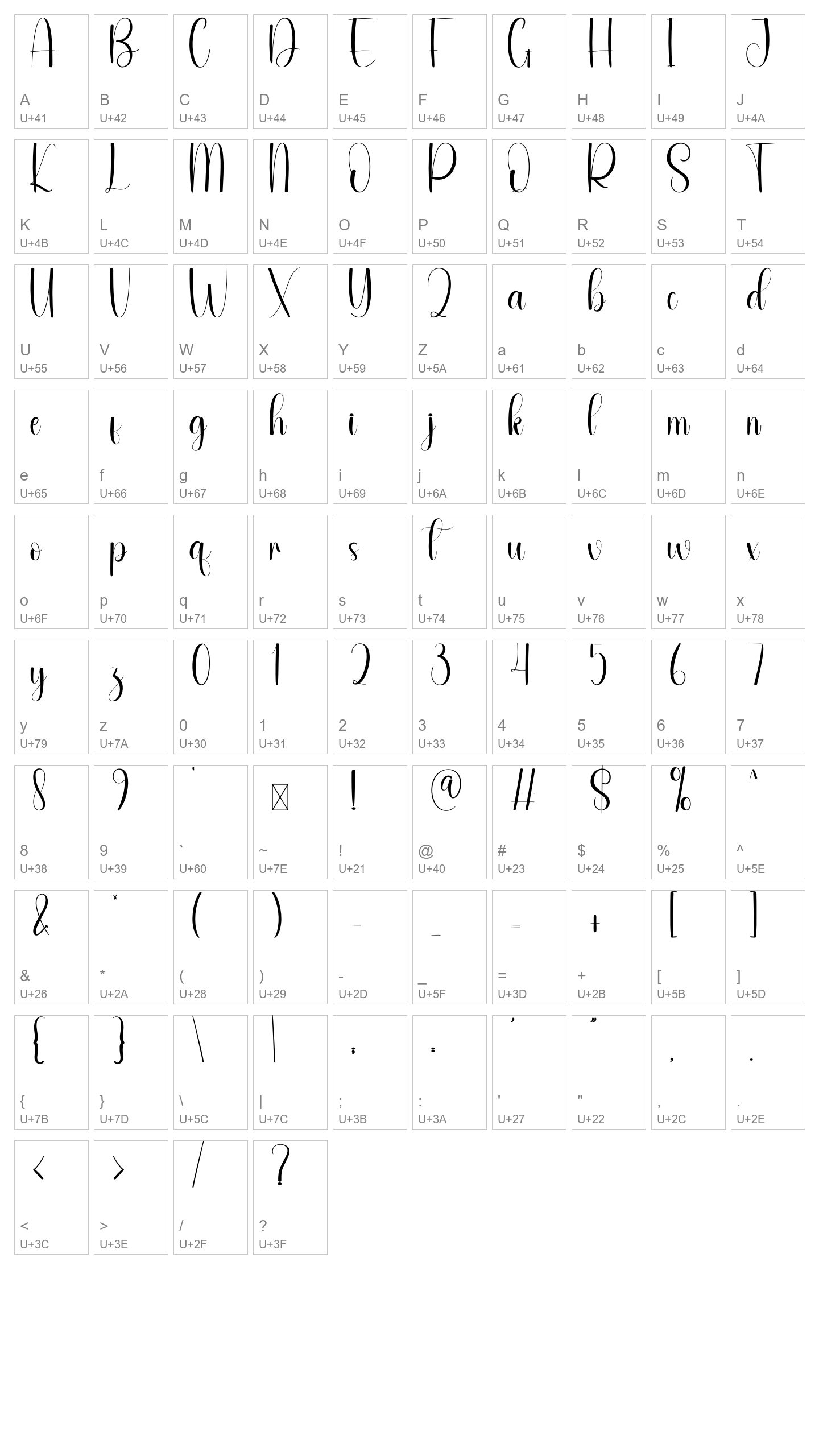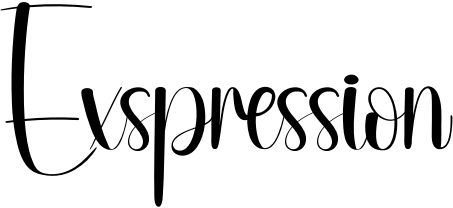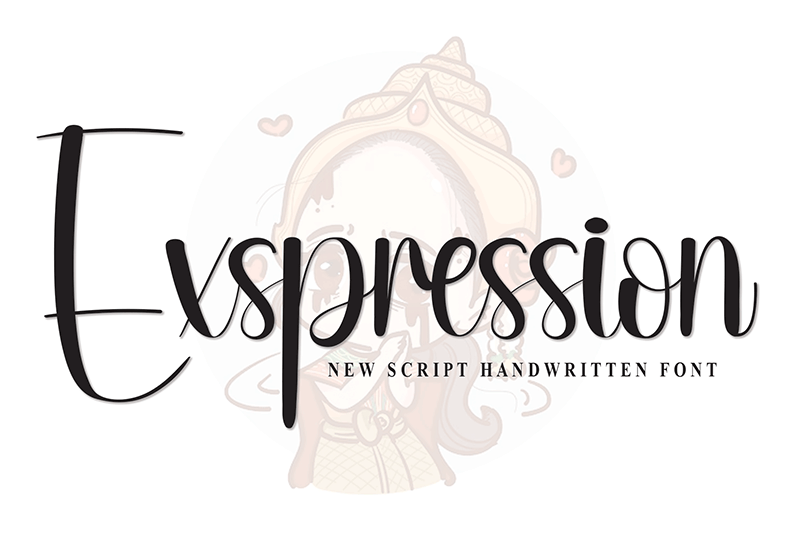
Exspression
this is a sweet and friendly handwritten display font. Cute and fun, this font is ideal for writing wedding invitations, cards, or any other design that might need a playful touch!